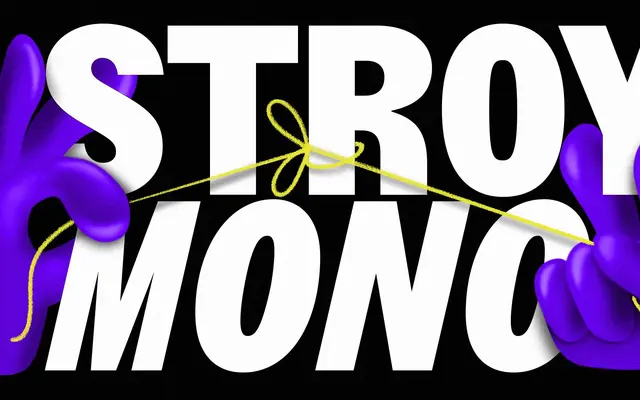
Stroy Mono
A monospaced family from Hot Type spanning six weights from Thin to Black, each with a matching italic, totalling 12 styles.
Twelve styles cover a range from Thin to Black with upright and italic cuts across every weight, giving the family more tonal range than most monospaced releases. The even spacing and clean construction suit both code environments and editorial contexts where a fixed-pitch rhythm is wanted. Available for trial on Fonstand before purchase.
A fixed-pitch typeface with a full weight range and matching italics, designed for both code and editorial use. The uniform character width and sans construction place it squarely in the monospaced category.